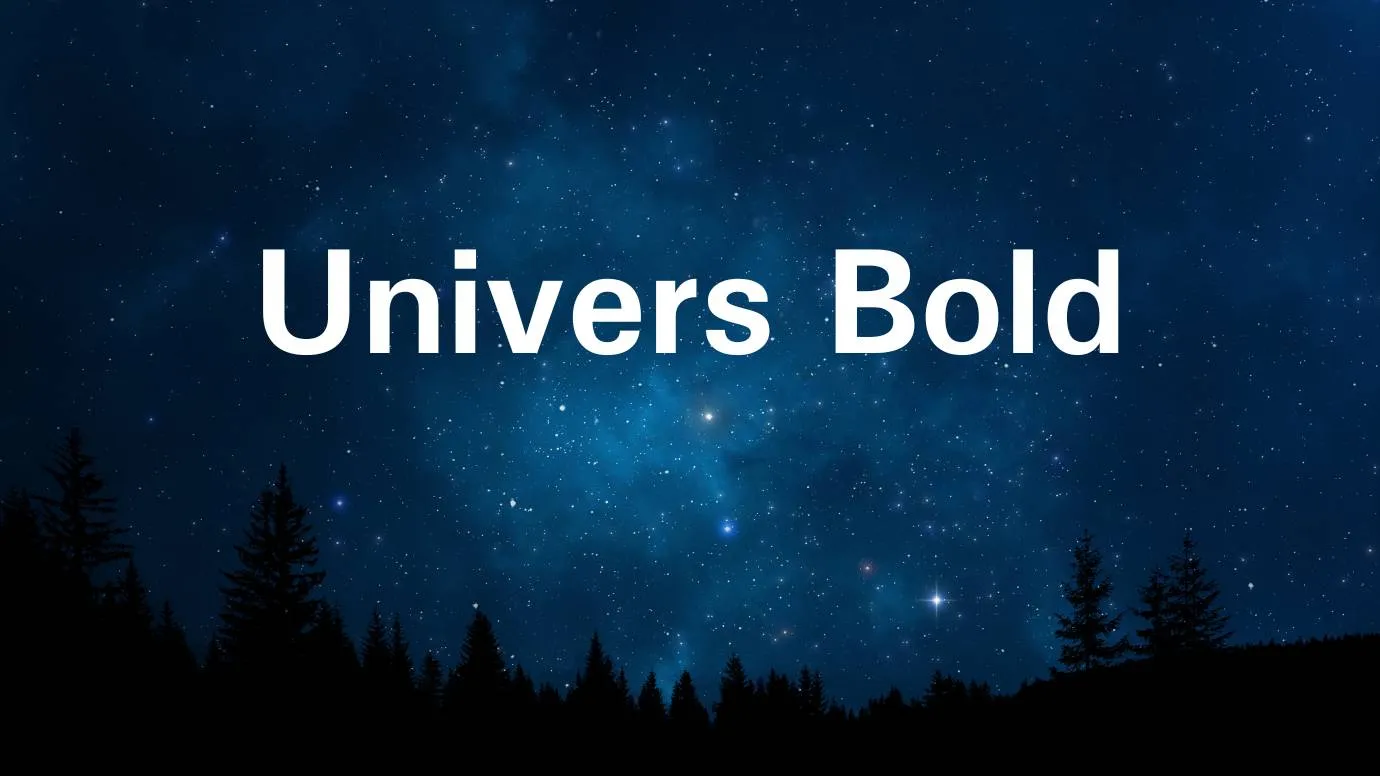
Univers Bold Font is a widely utilized typeface within the expansive sans serif family known as Univers font, standing out as one of the most identifiable fonts in the market. Its original creation was the work of the noteworthy graphic designer, Mr. Adrian Frutiger, who designed it in 1957 for Deberny and Peignot.
Univers font has another famous font family that is known as Univers Semi-condensed and it is also an ideal font for any kind of design.
Univers Bold Font Family
NameUnivers Bold Font
DesignerAdrian Frutiger
FoundryDeberny & Peignot
StyleSans serif
Date Released1957